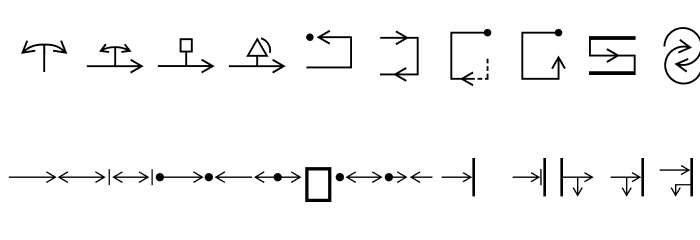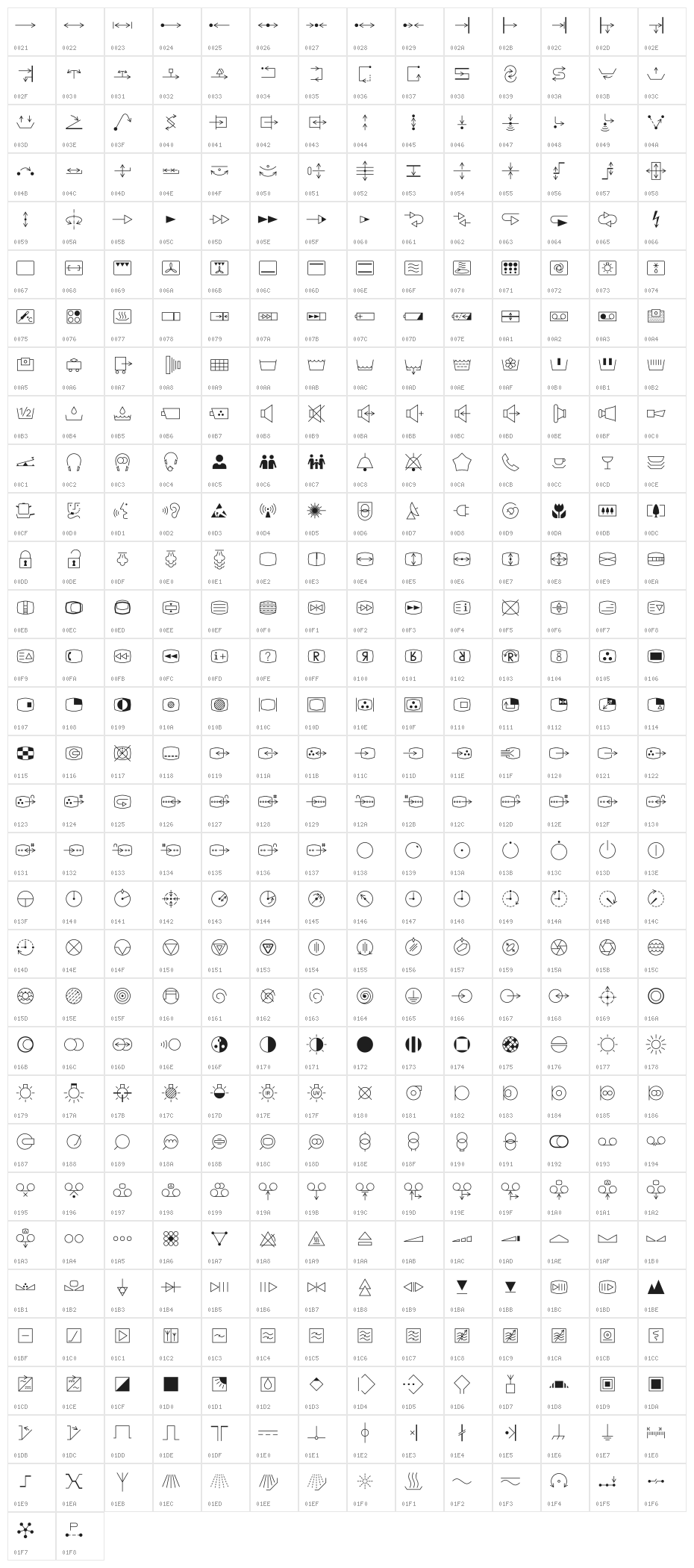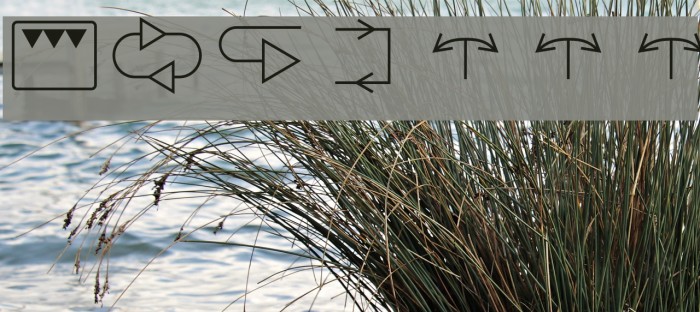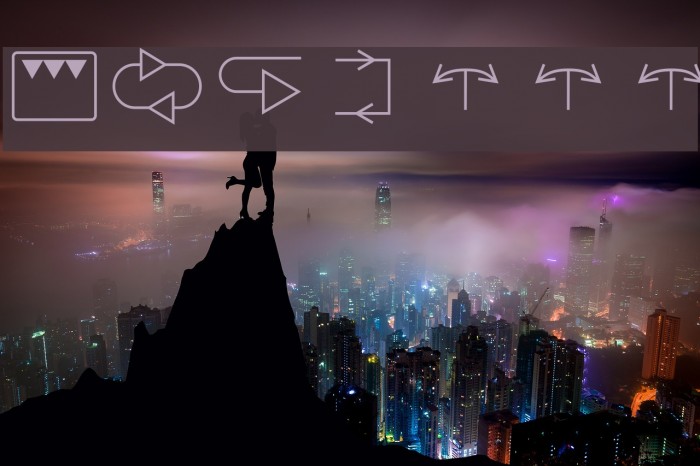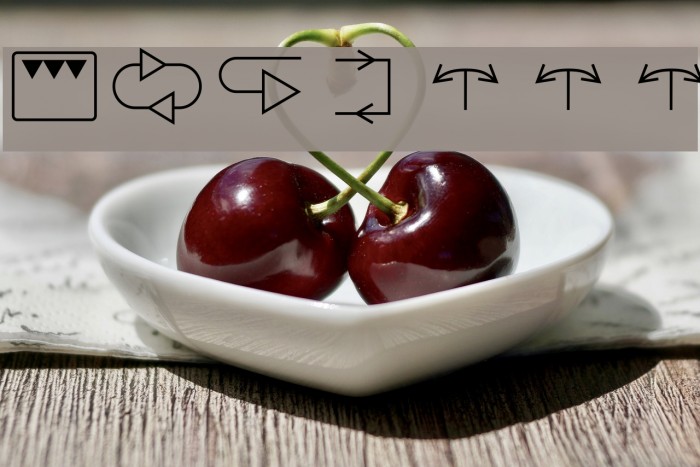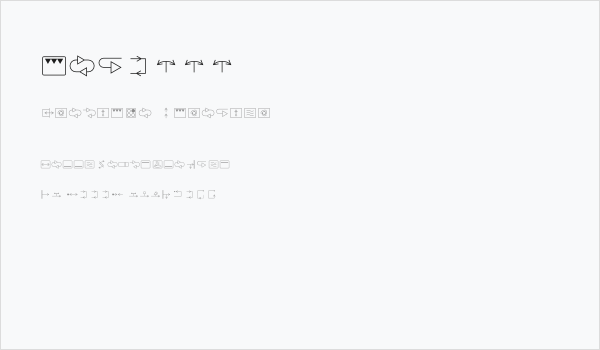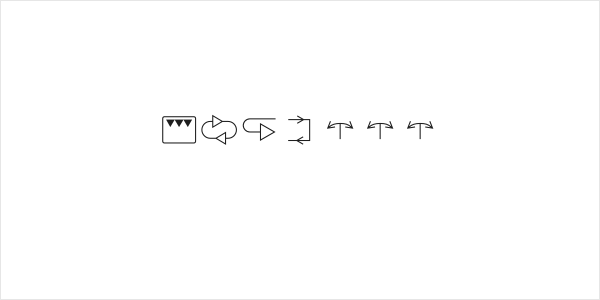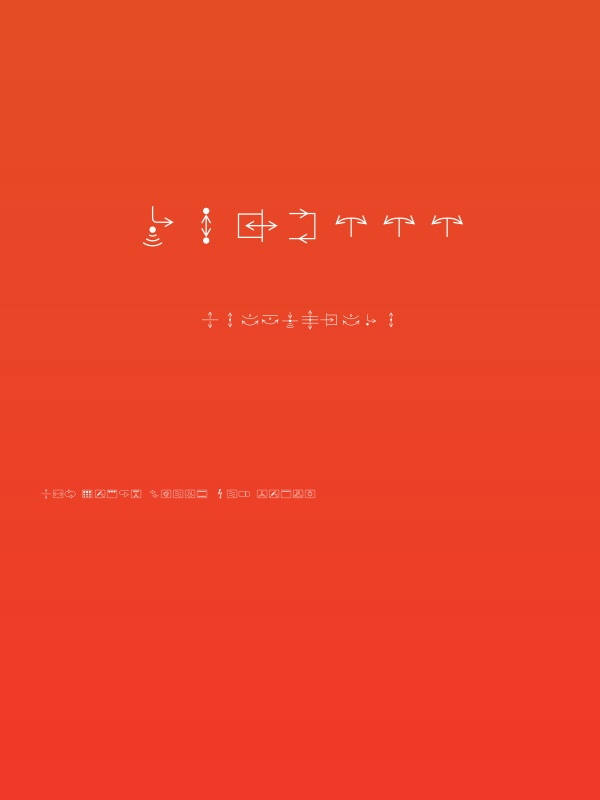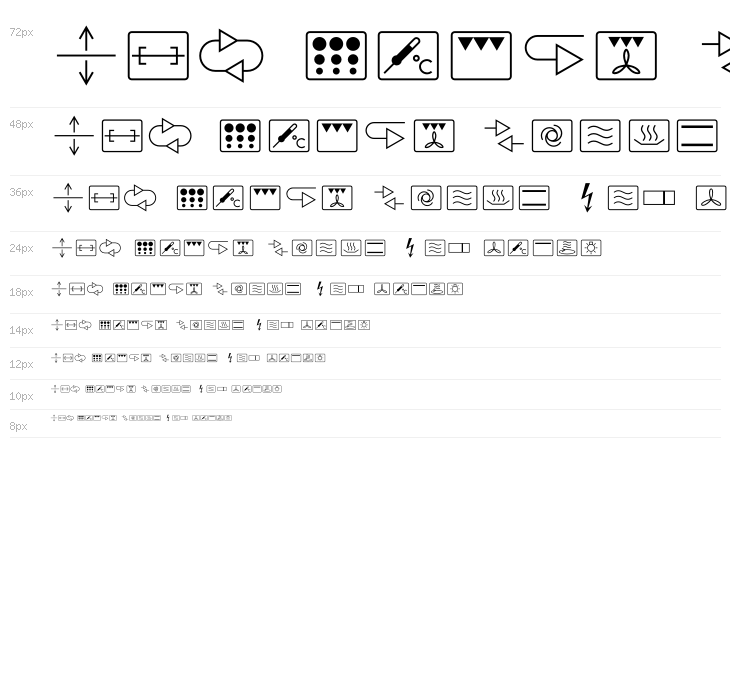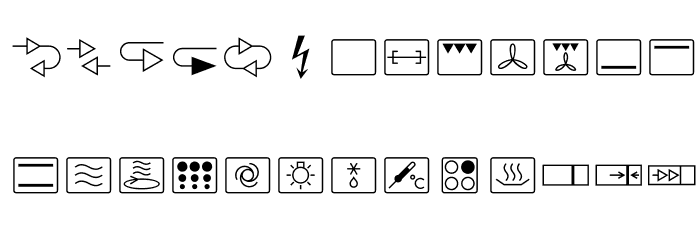
iec5000 Font
iec5000 Description
A collection of technical and schematic symbols, including arrows, electrical symbols, flow indicators, and various geometric shapes, designed with clean, consistent line weights and minimal decorative elements.
| Overall Style | Technical, Modern |
| Use Case | Technical diagrams, schematics, instructional graphics. |
| Proposed Projects | Engineering diagrams, instructional manuals, technical documentation, flowcharts, user interface icons. |